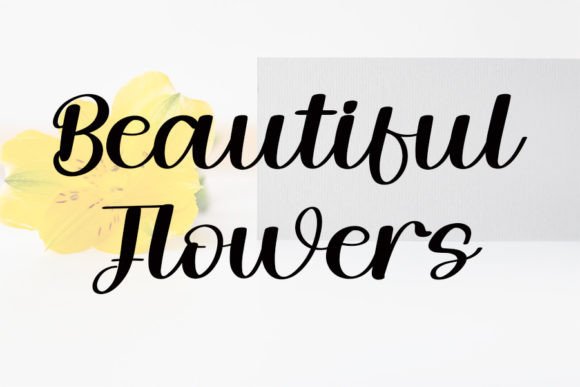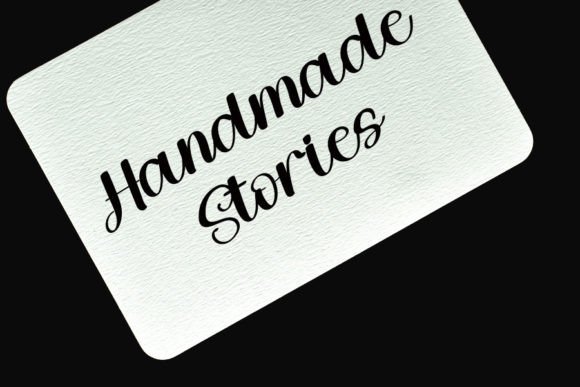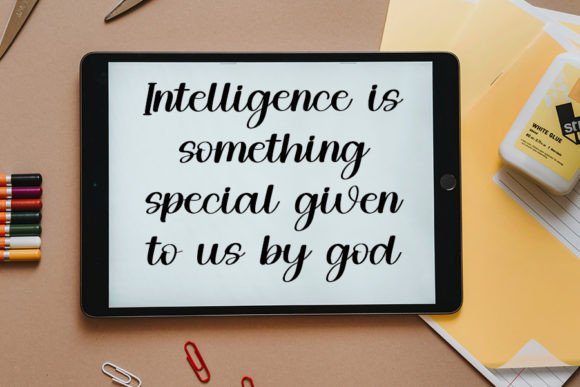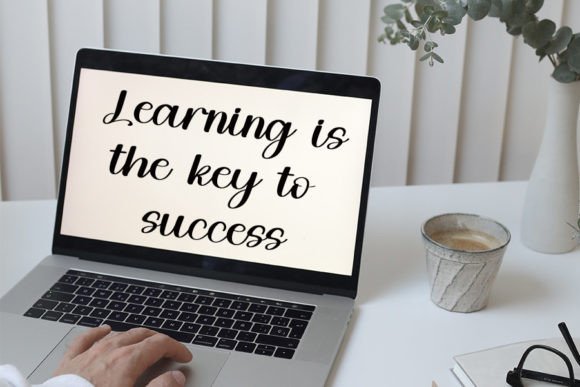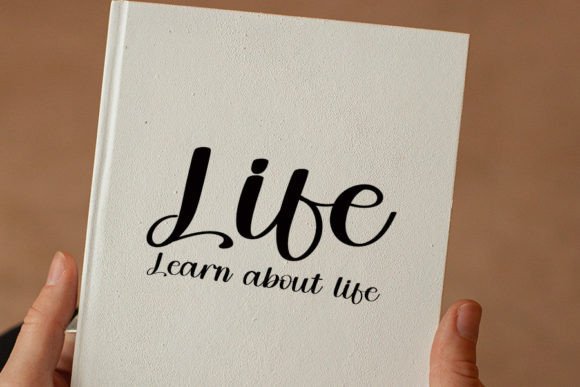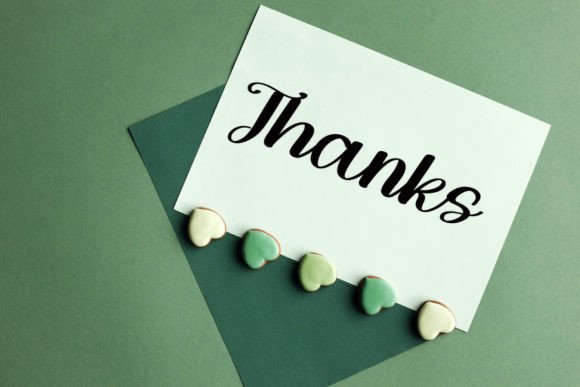
Cake Font: Elevate Your Designs with a Timeless Classic
Are you looking for a font that exudes elegance and sophistication? Look no further than the Cake Font, a stylish handwritten font that brings a contemporary atmosphere to your designs. Inspired by timeless classic calligraphy, Cake Font is the perfect addition to any design project that requires a touch of refinement and poise.
What is Cake Font?
Cake Font is a beautifully crafted handwritten font that boasts a balanced and varied design. With its impeccable form and classic inspiration, this font is sure to elevate the beauty of your projects. Whether you’re a designer, crafter, or DIY enthusiast, Cake Font is an excellent choice for anyone looking to add a touch of sophistication to their work.
Key Features of Cake Font
- Contemporary atmosphere: Cake Font has a modern feel that will make your designs stand out from the crowd.
- Timeless classic inspiration: Inspired by traditional calligraphy, this font brings a sense of elegance and refinement to your projects.
- Balanced and varied: The font’s balanced design ensures that it looks great in any context, while its varied letterforms add visual interest and depth.
- Impeccable form: Cake Font’s precise and clean lines make it perfect for use in a wide range of design applications.
Uses for Cake Font
Cake Font is an incredibly versatile font that can be used in a variety of design projects, including:
- Wedding invitations and stationery: Add a touch of elegance to your wedding stationery with Cake Font.
- Branding and packaging: Use Cake Font to create sophisticated and eye-catching packaging and branding materials.
- Signage and displays: Cake Font is perfect for use in signage and display applications where you want to make a lasting impression.
- Digital and print media: Use Cake Font in your digital and print media projects, such as brochures, flyers, and social media graphics.
Tips for Using Cake Font
To get the most out of Cake Font, here are a few tips to keep in mind:
- Use it sparingly: Cake Font is a statement font, so use it sparingly to add emphasis and visual interest to your designs.
- Pair it with contrasting fonts: Pair Cake Font with contrasting fonts to create visual interest and hierarchy in your designs.
- Experiment with colors and textures: Don’t be afraid to experiment with different colors and textures to add depth and visual interest to your designs.
In conclusion, Cake Font is a stylish and sophisticated handwritten font that is perfect for designers and crafters looking to add a touch of elegance to their projects. With its contemporary atmosphere, timeless classic inspiration, and impeccable form, Cake Font is sure to elevate the beauty of your designs. Whether you’re working on a wedding invitation, branding project, or digital media design, Cake Font is an excellent choice.